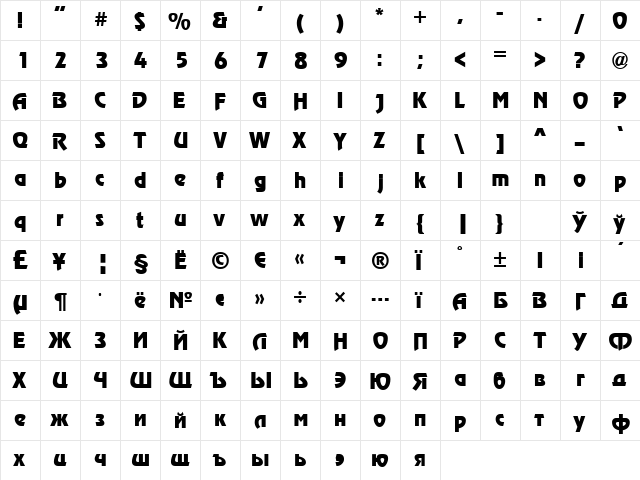
Regata Normal
Design Context for Regata Typeface
Regata offers clean, dependable letterforms without strong stylistic allegiance, making it a practical choice for designers who need flexibility.
Pro Tip: Use Regata in both headline and body roles to test its range before committing to a single application.